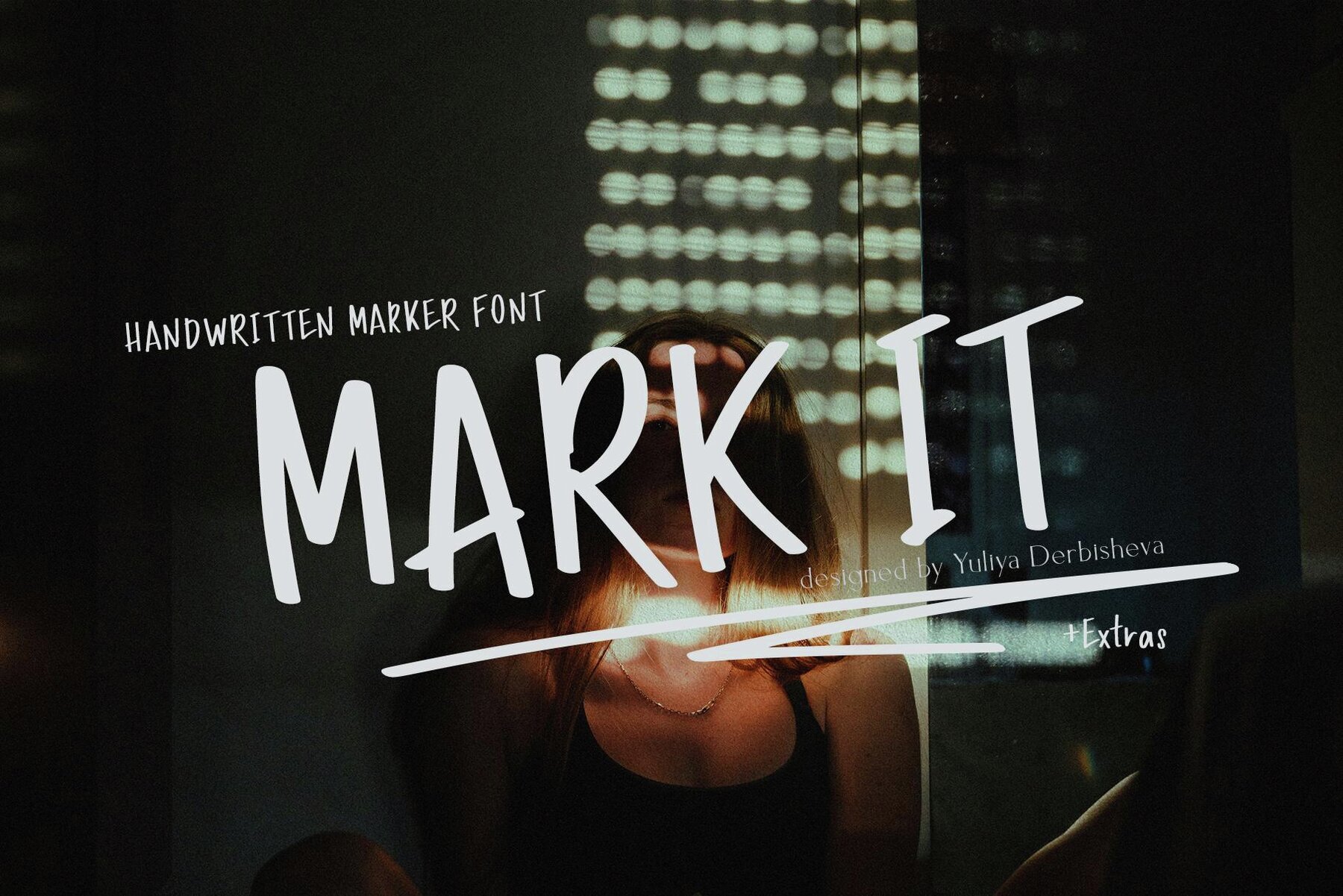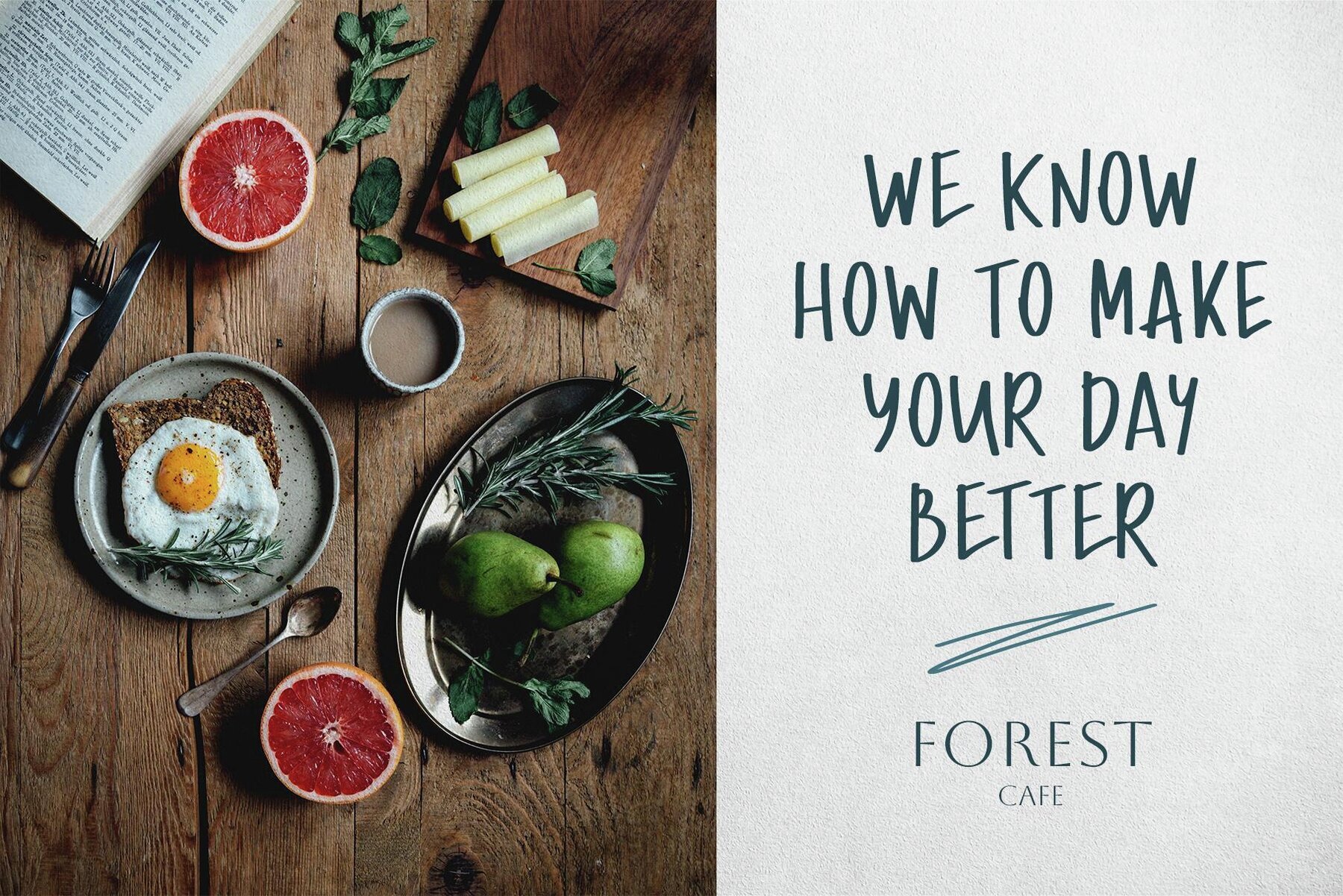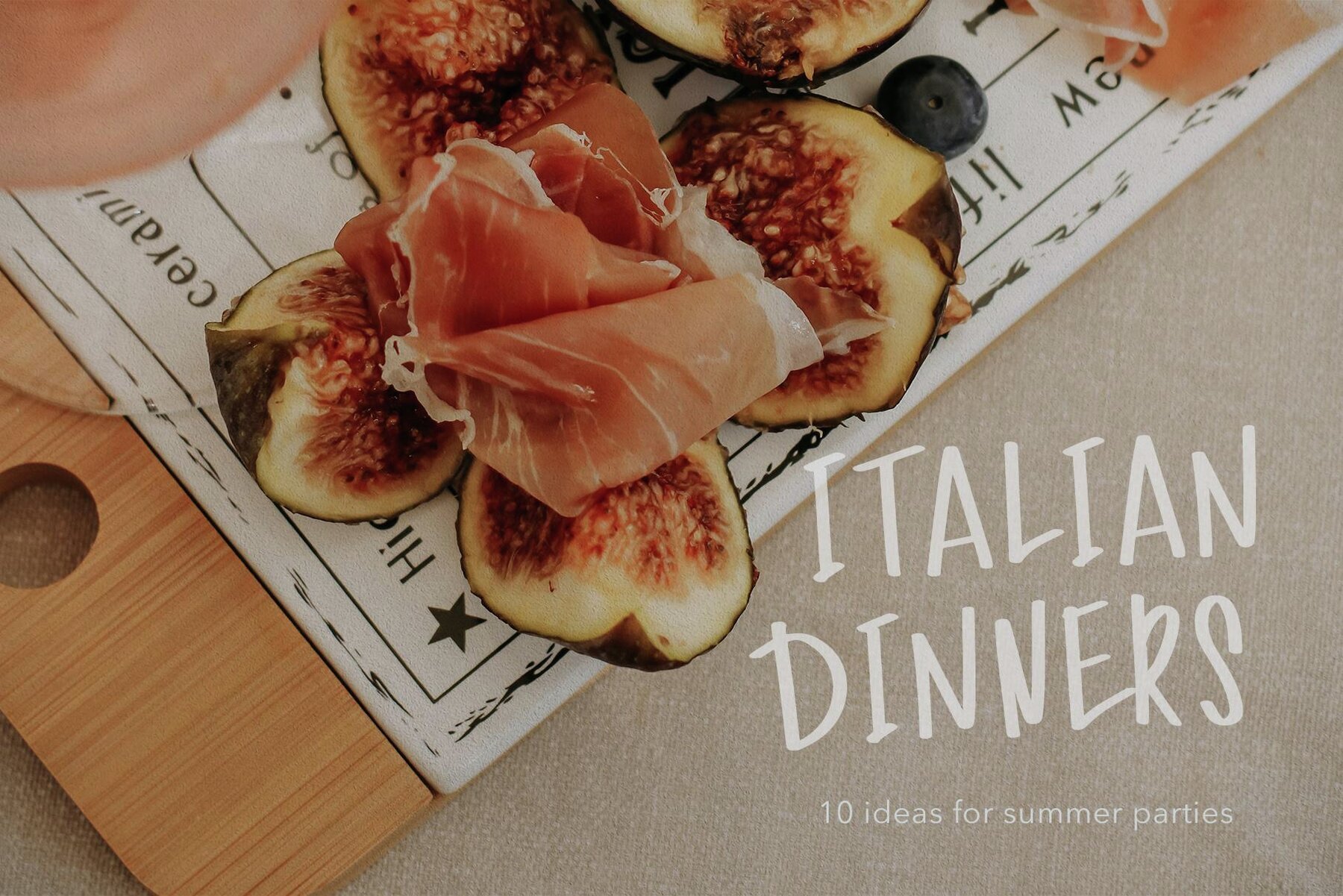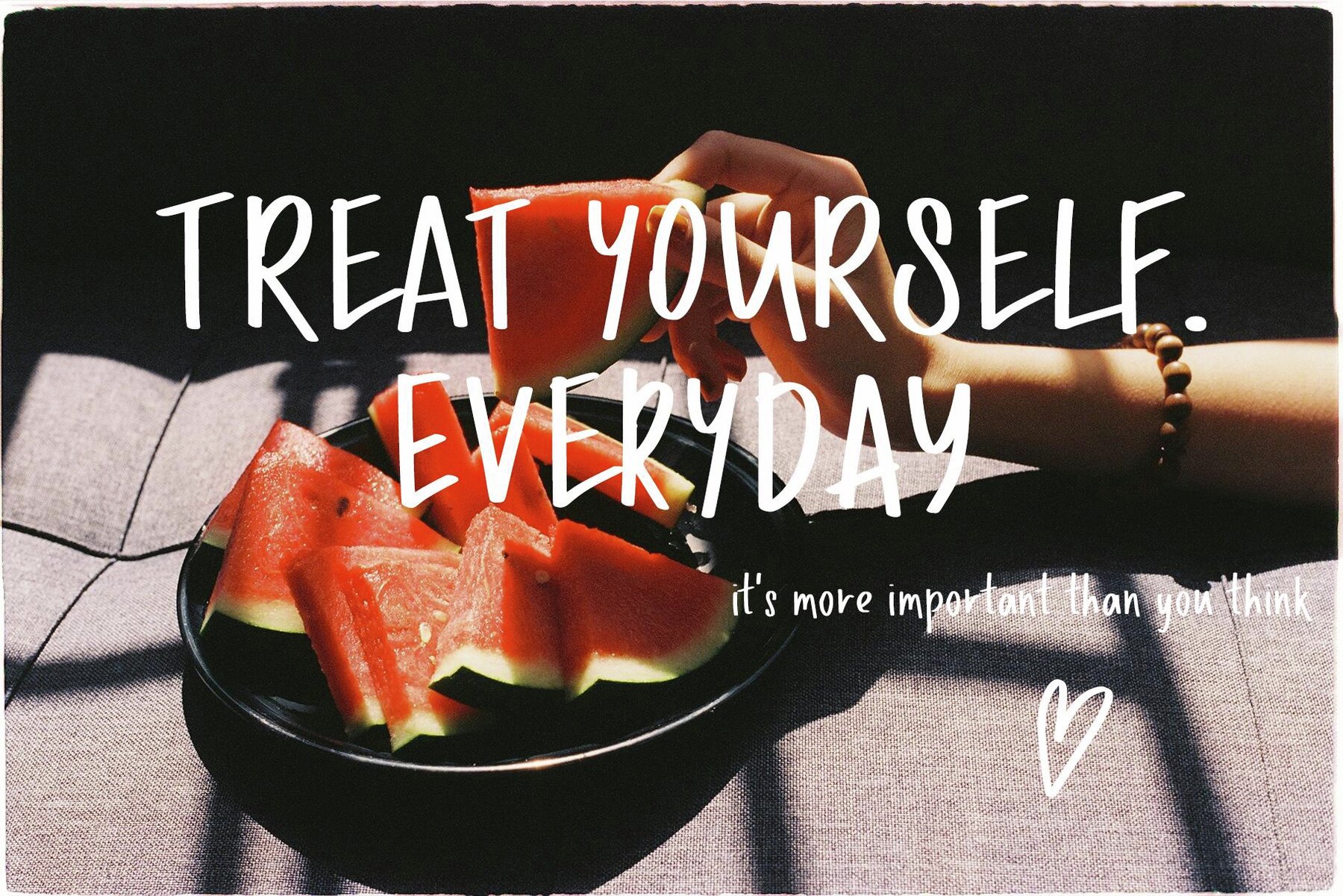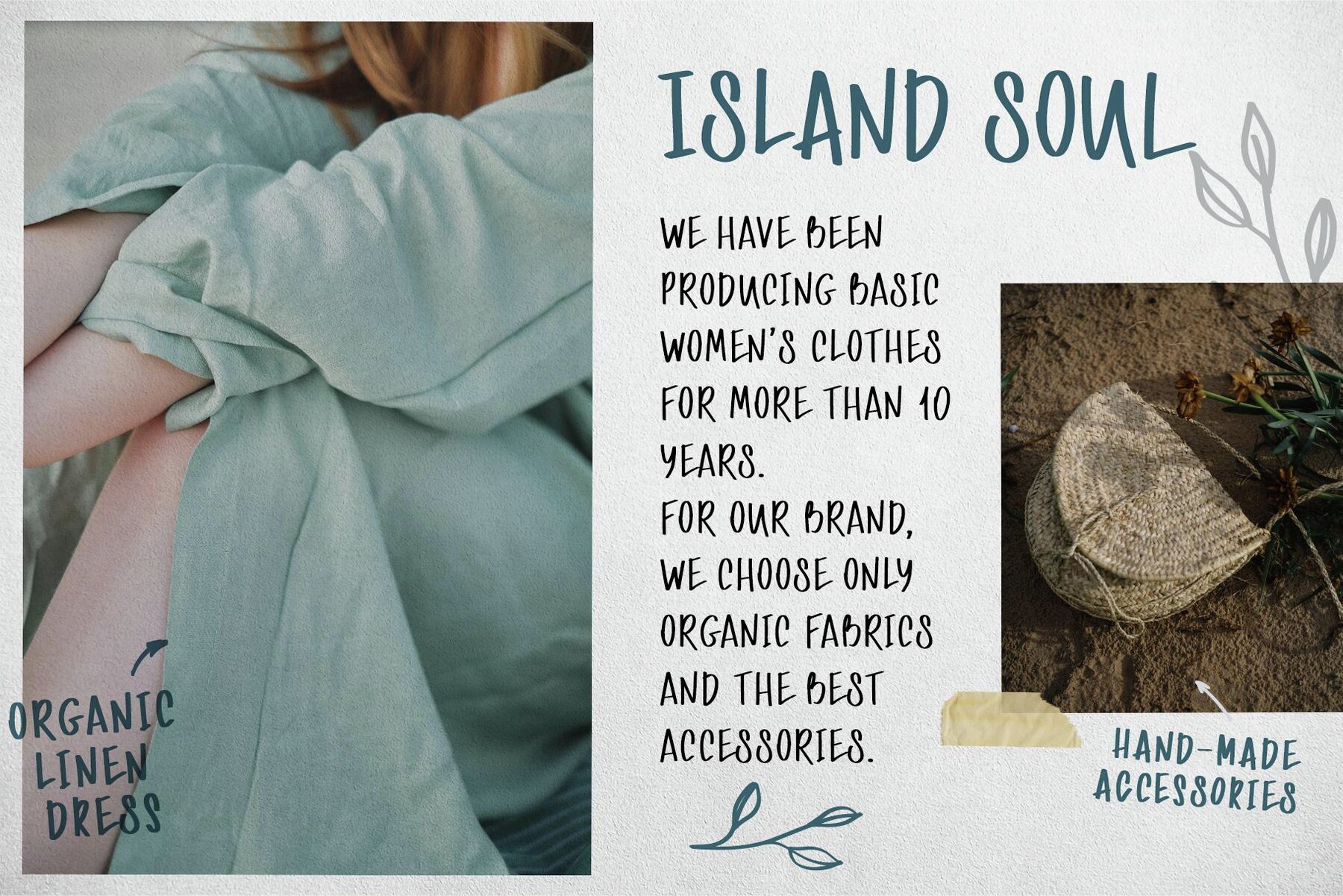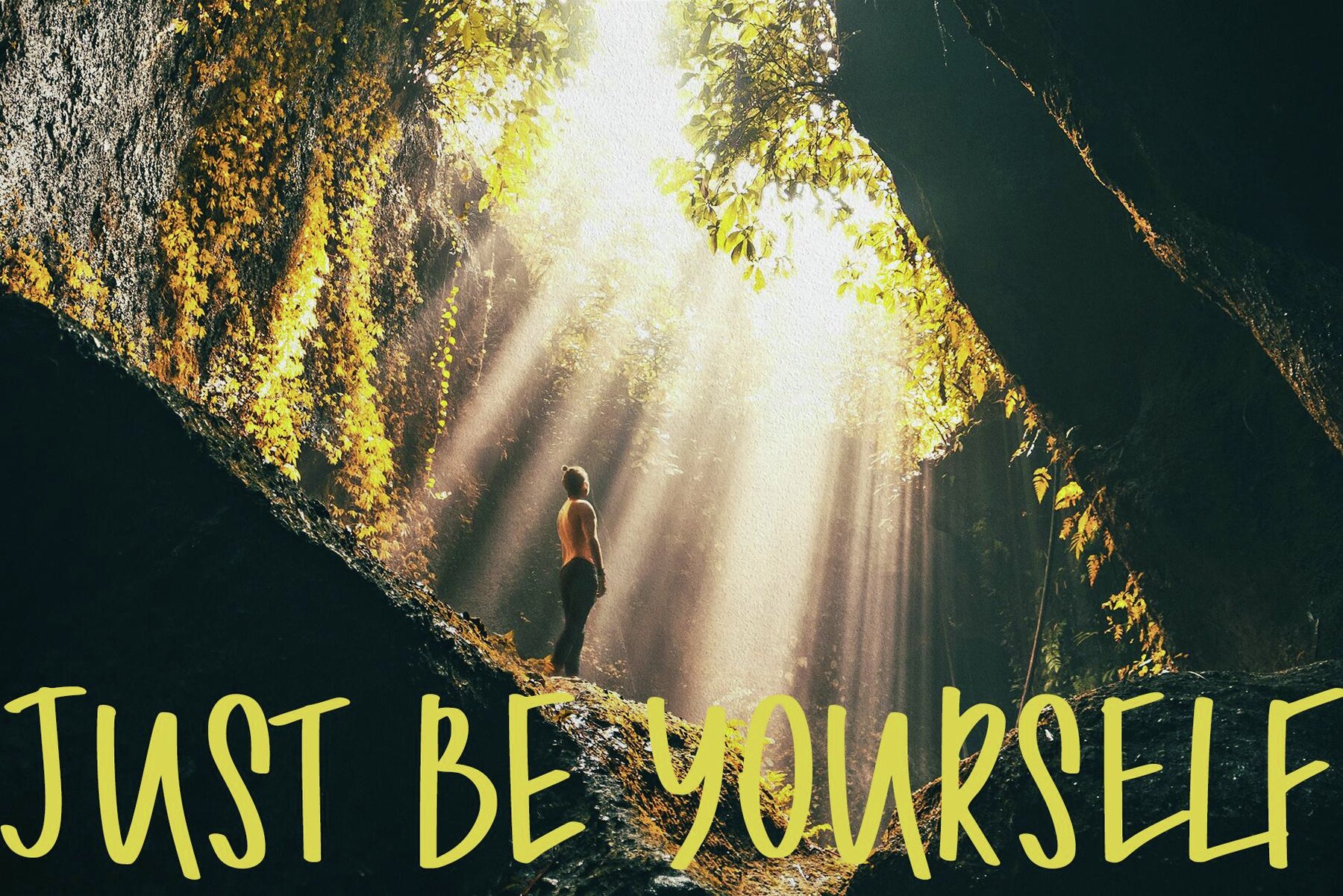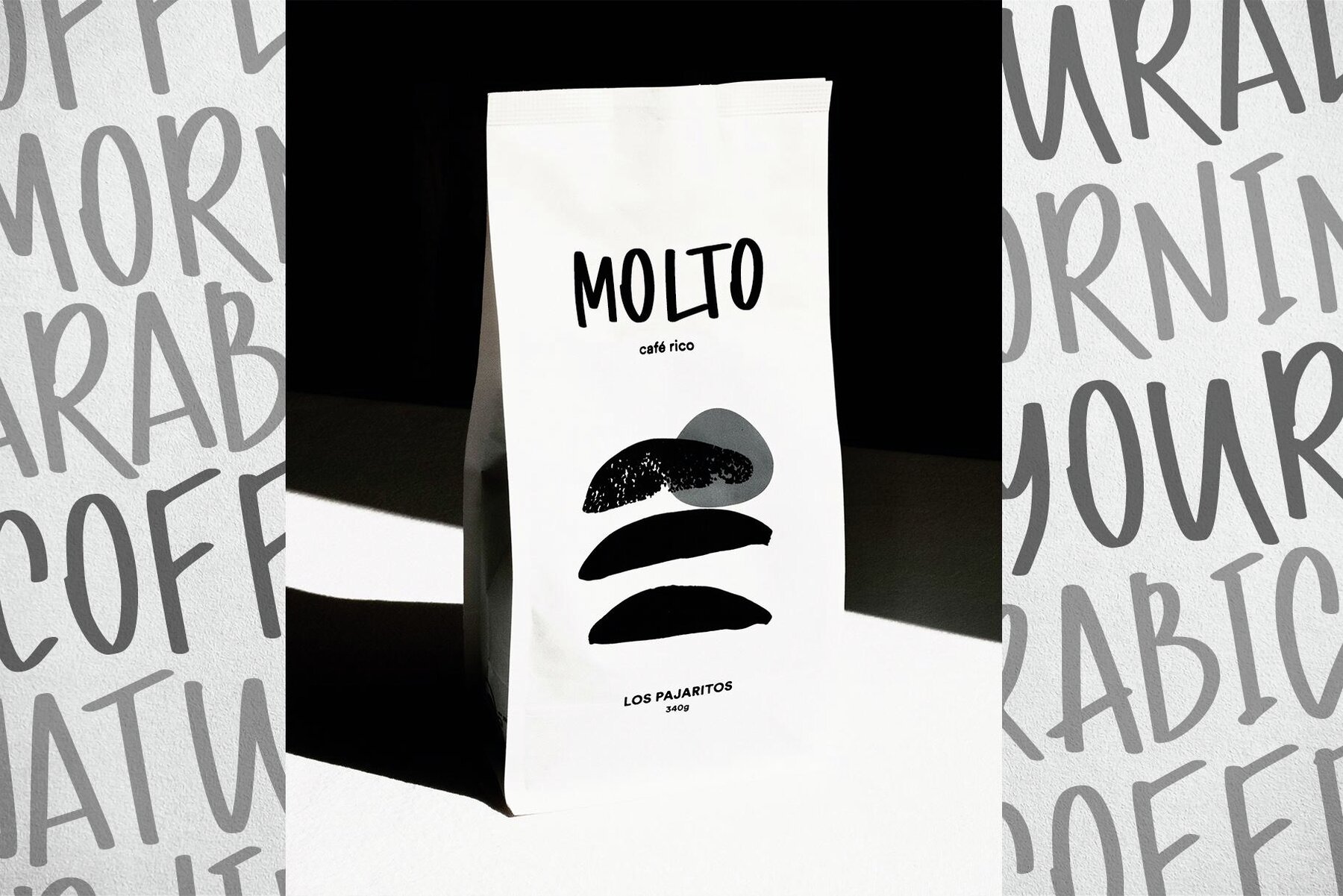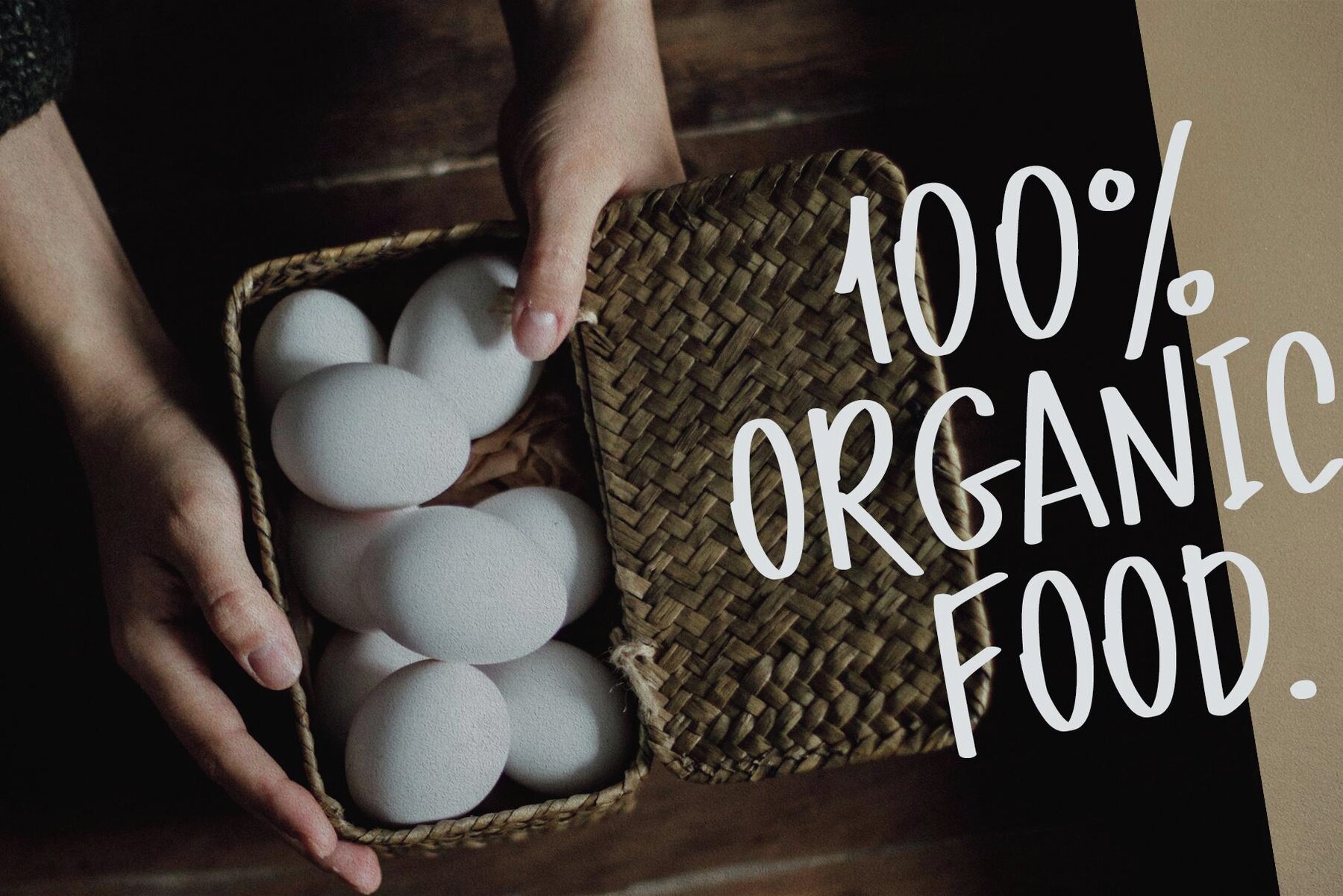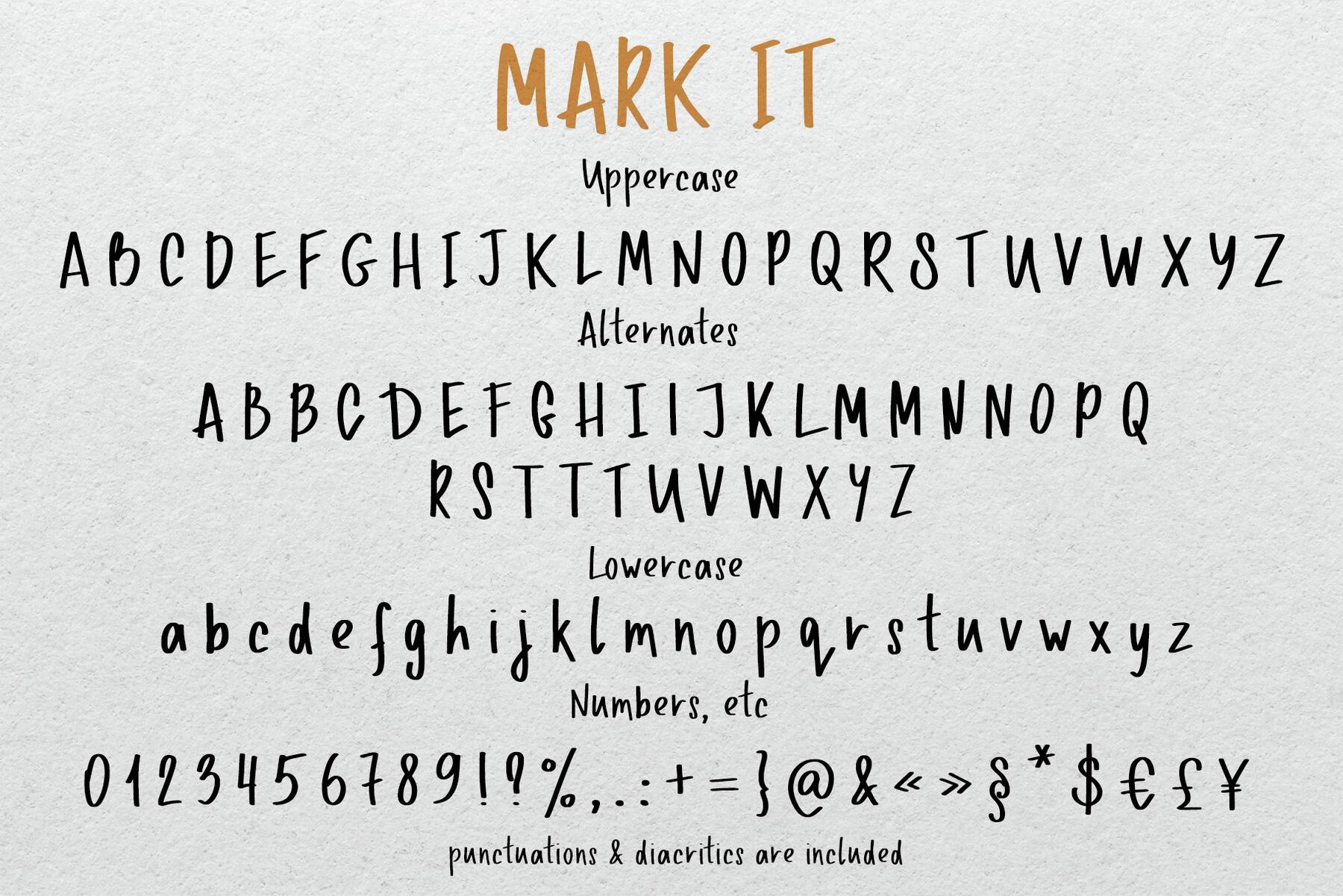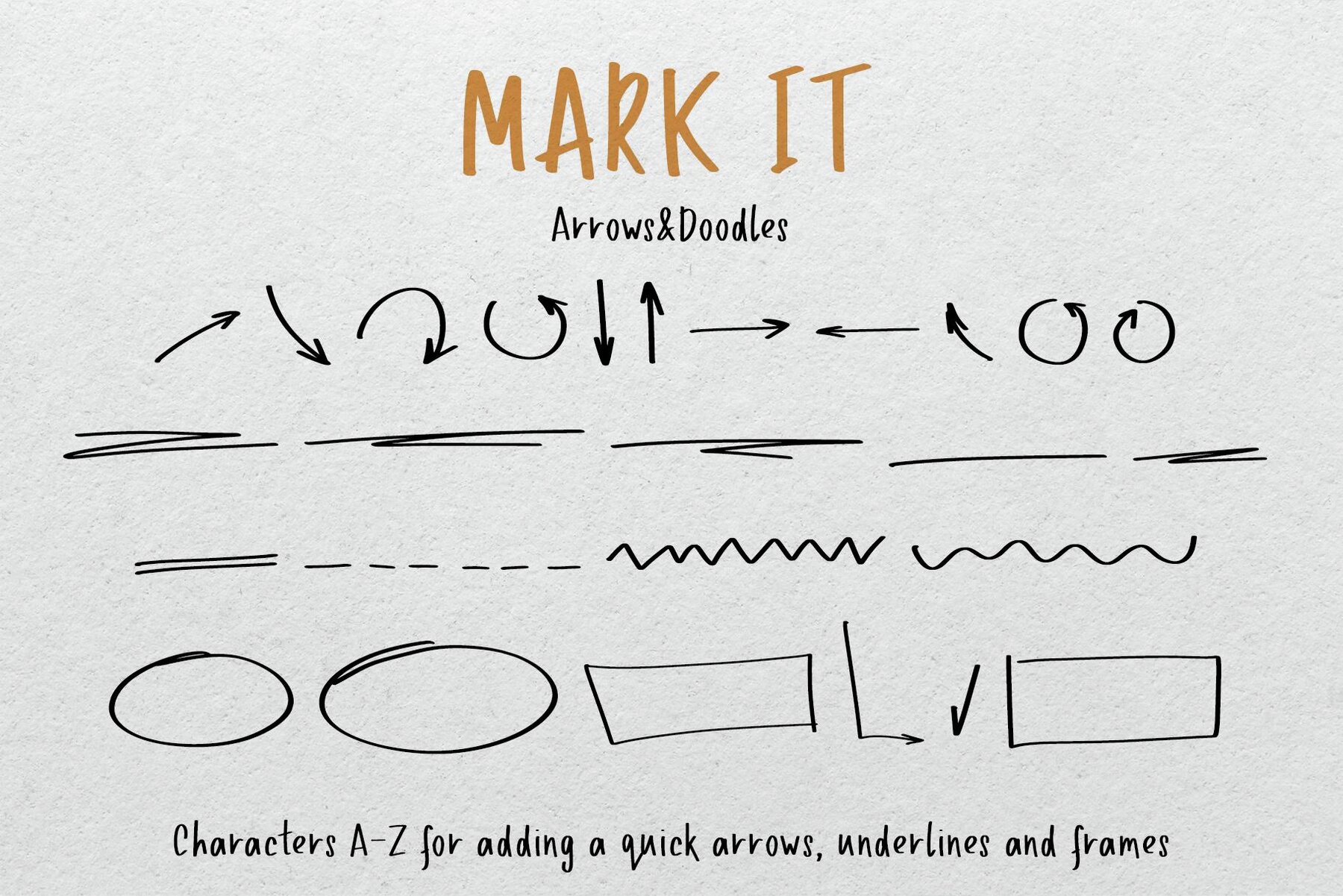
Mark It Font
Mark It brings the casual charm of handwritten text to your design projects. Created with a marker, this font offers a distinctive personal touch, ideal for logos, packaging, and various thematic designs. Dive into a creative journey with stylistic alternates and arrow and doodle embellishments that enhance your artistic flair. Elevate your designs with Mark It's broad language support. From English to Turkish, this font caters to a multilingual audience, making it a versatile choice for diverse projects. Please note, text and mockups are not included in the package.Mark It - Handwritten Marker Font